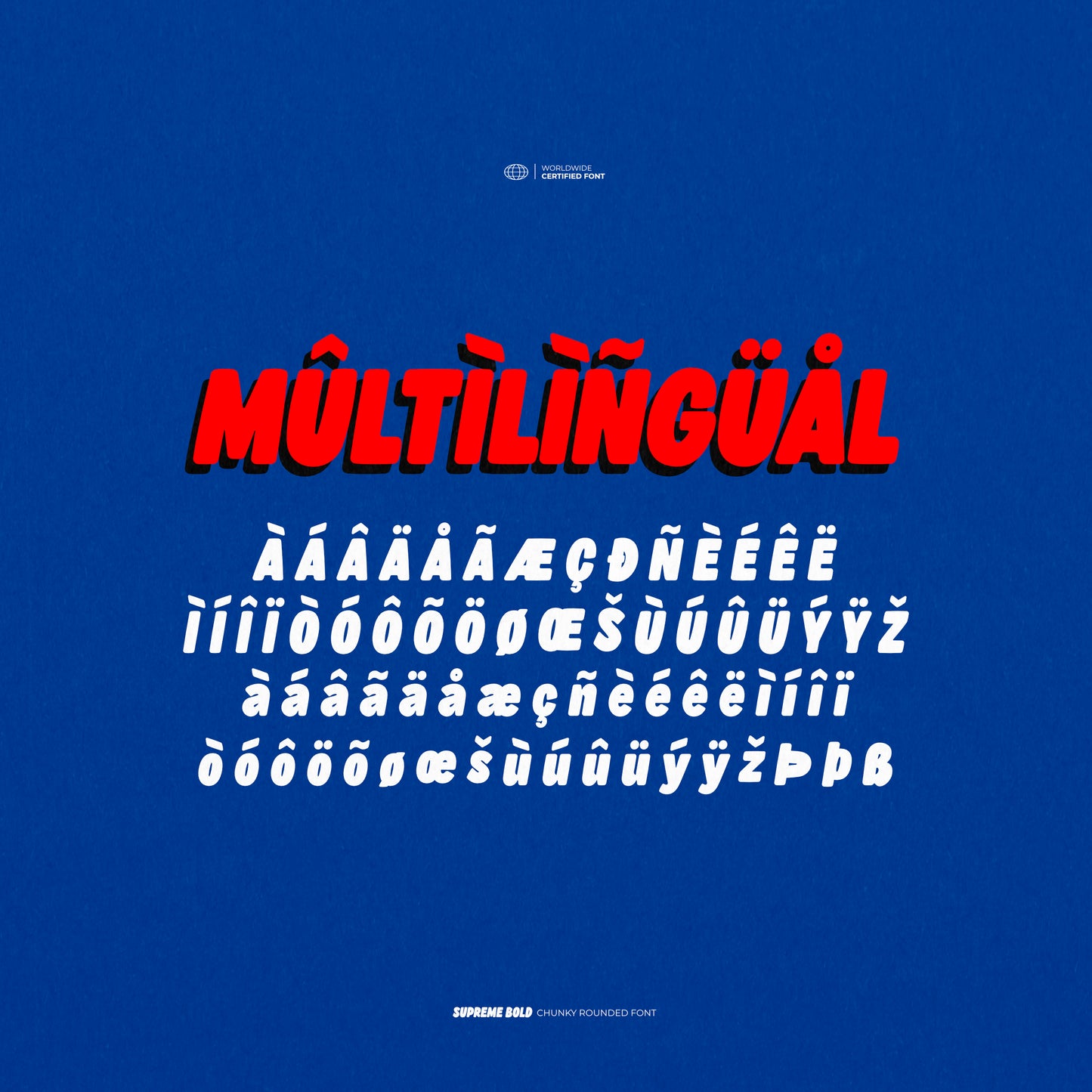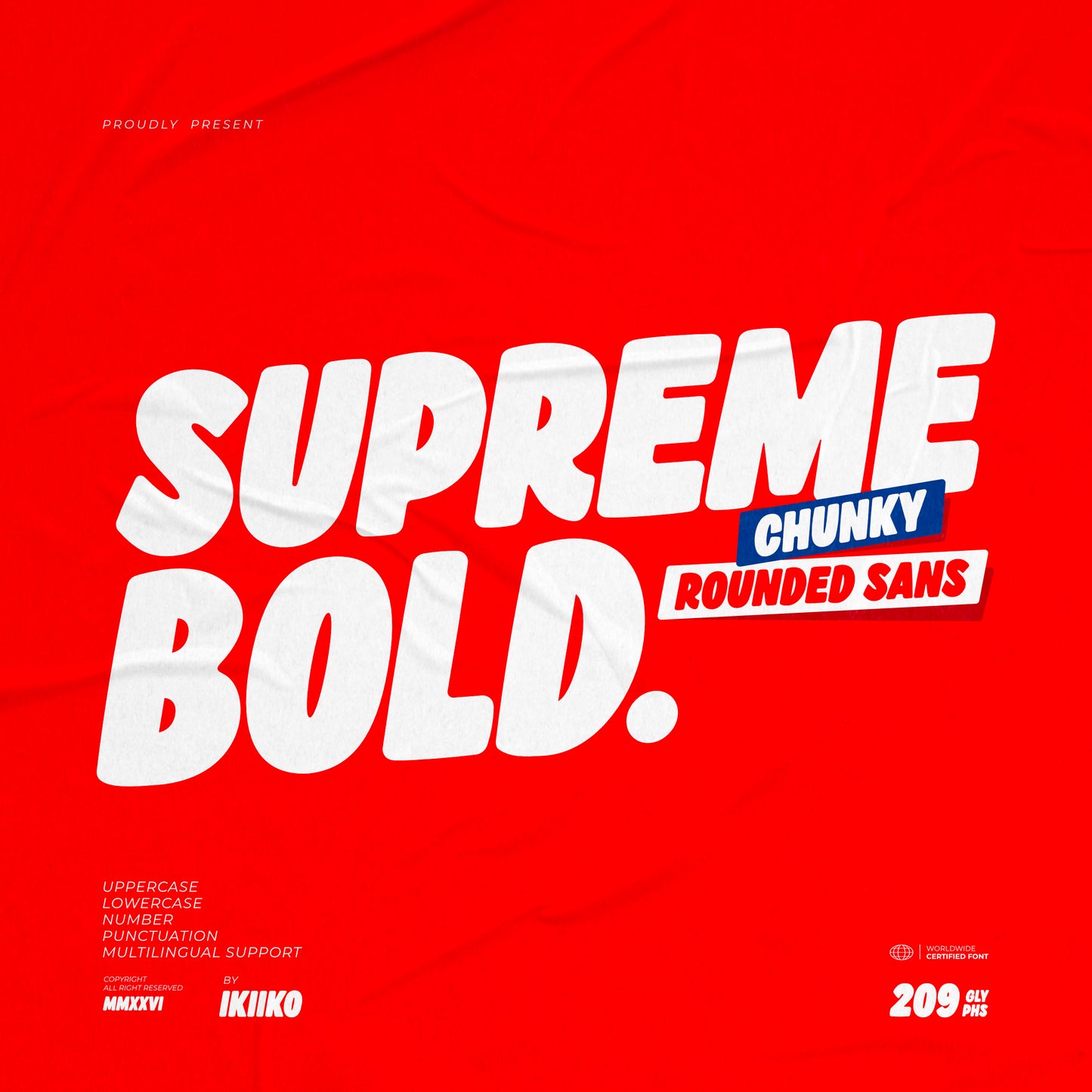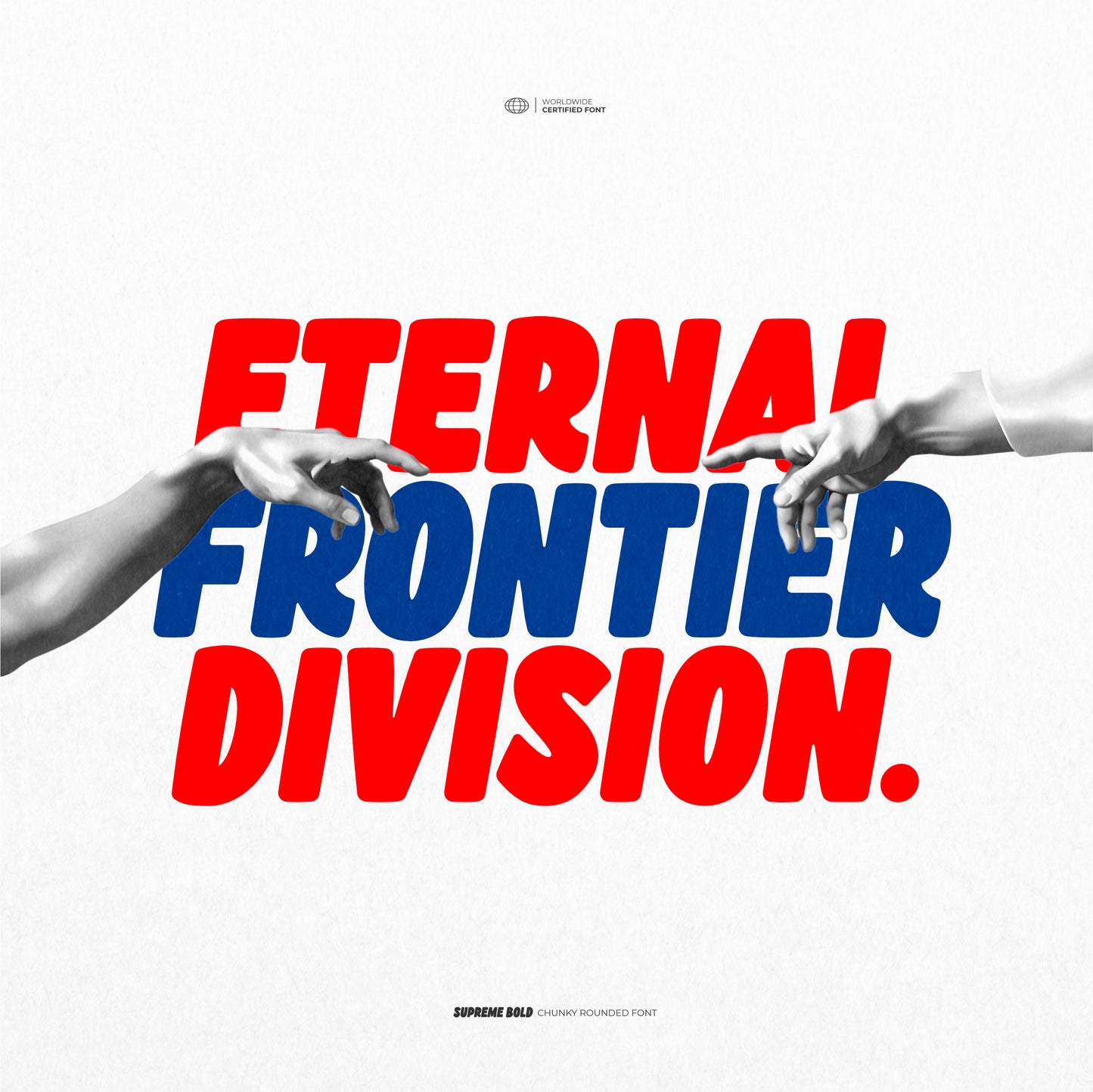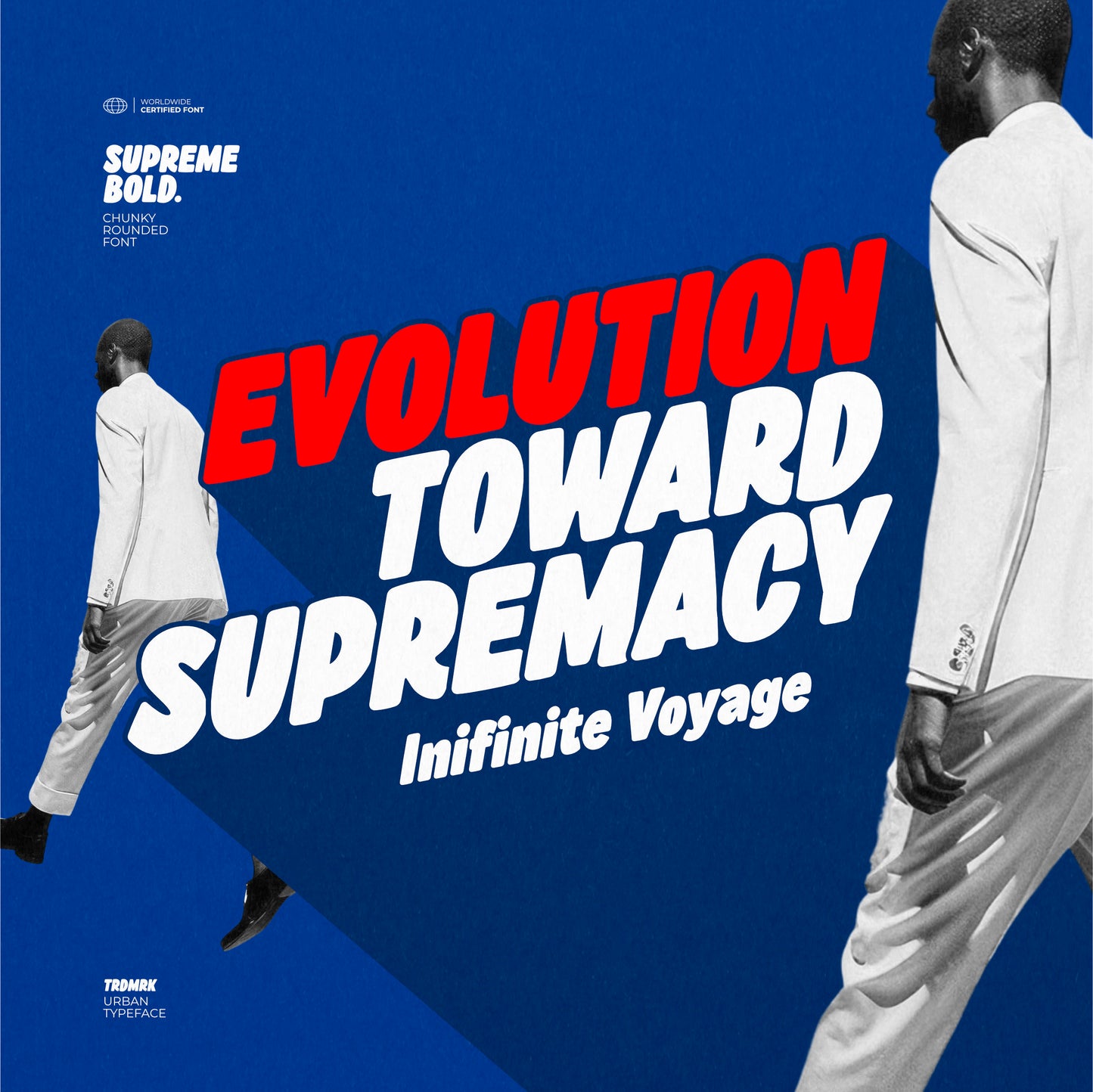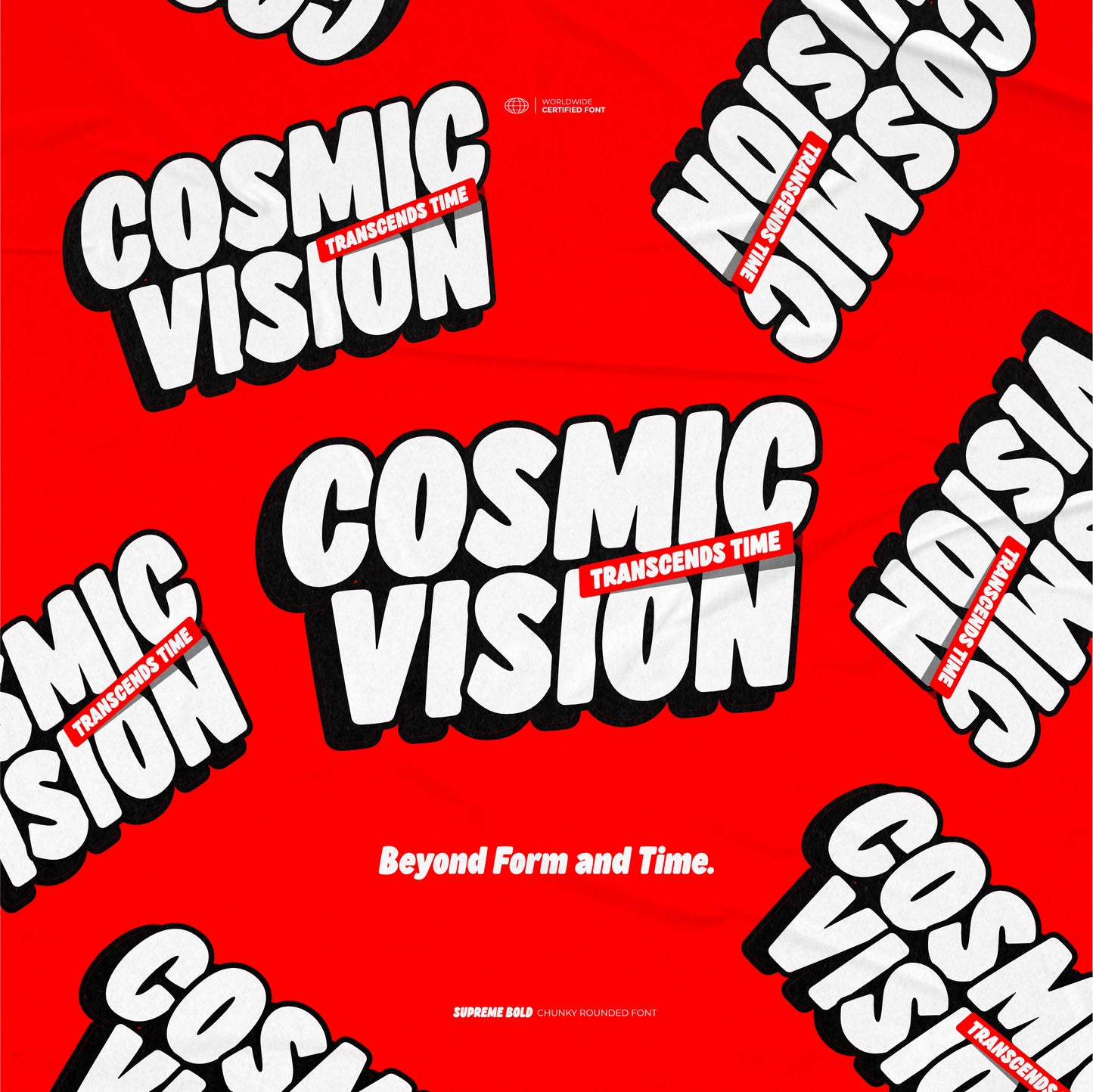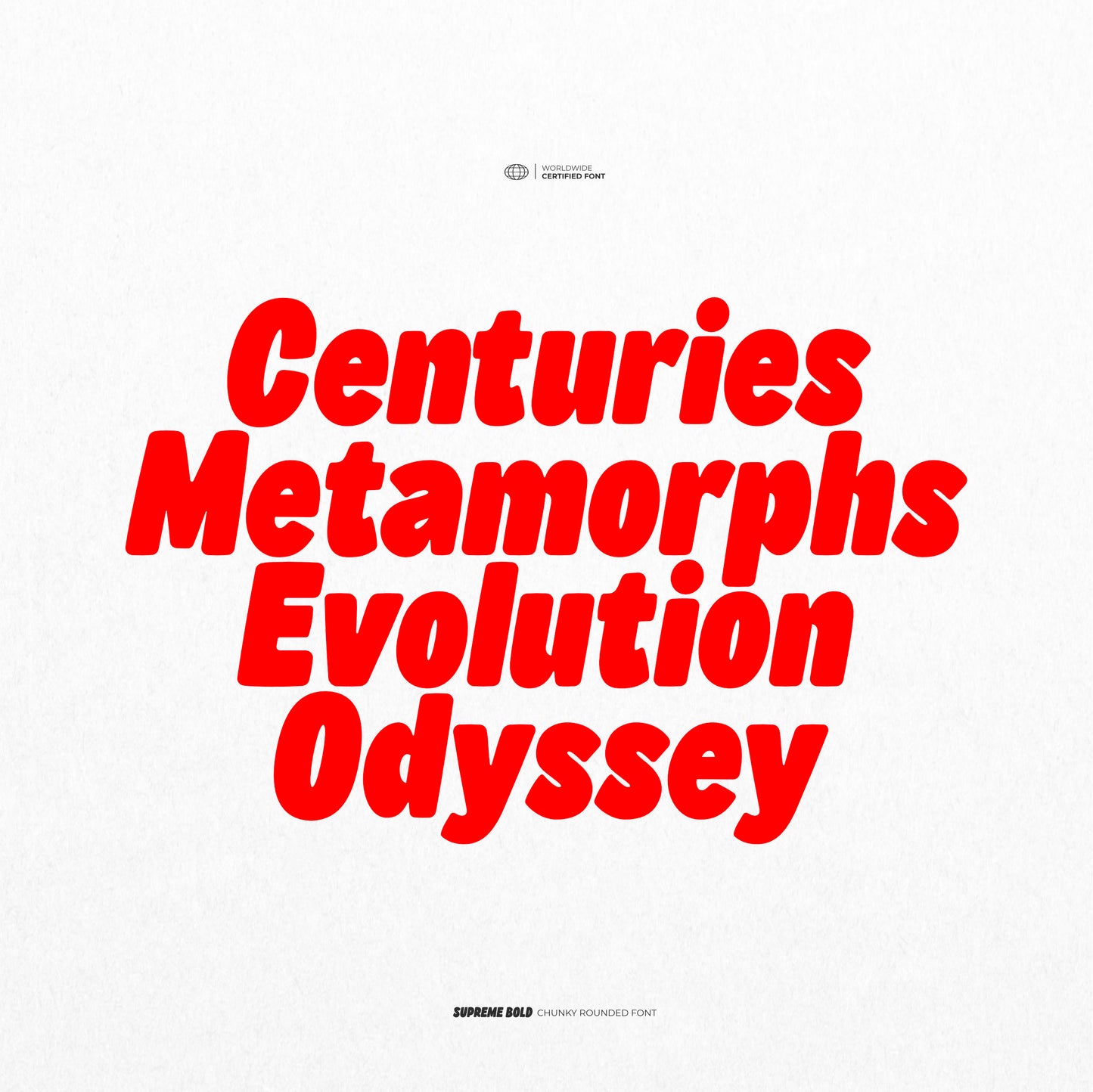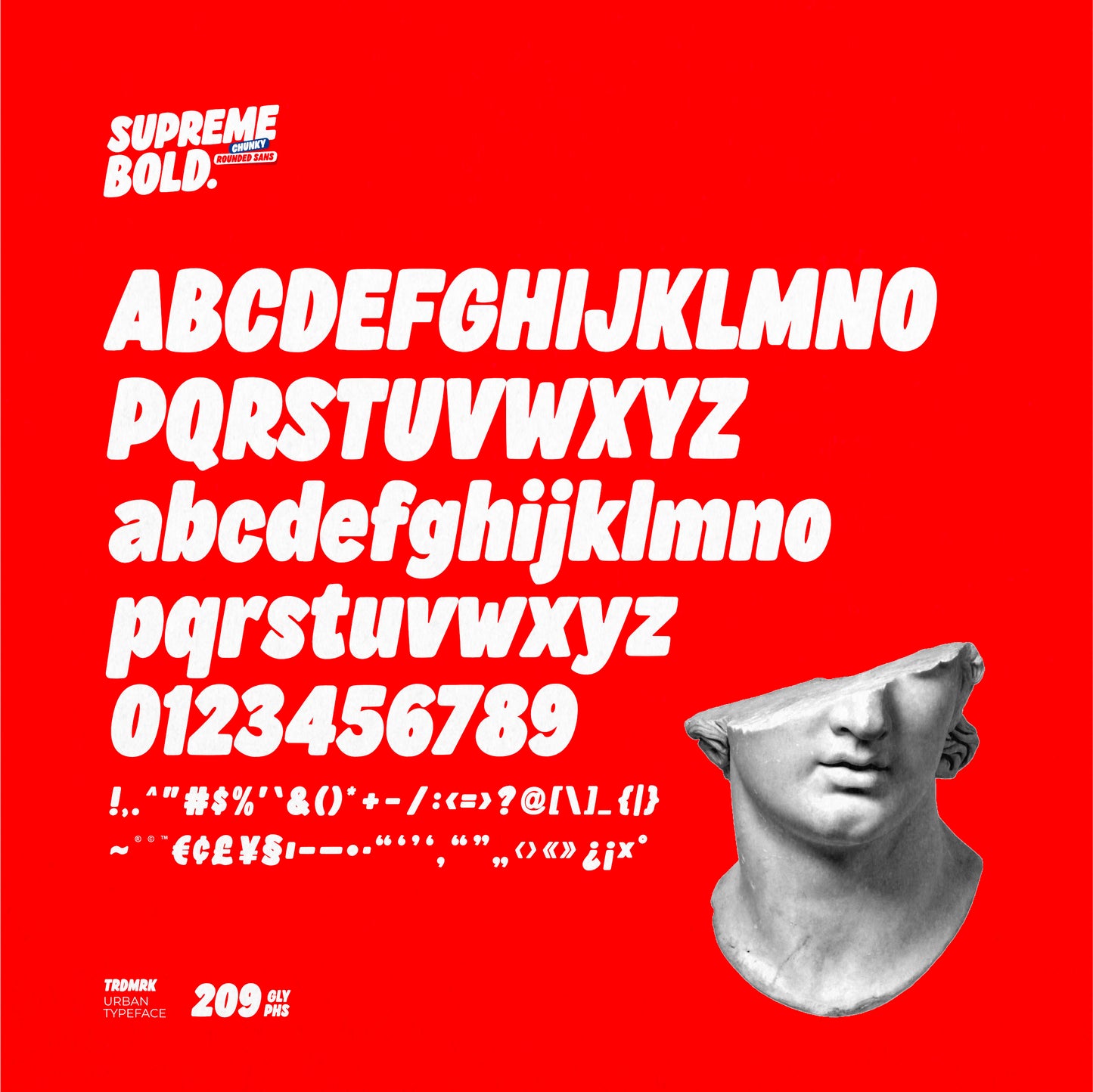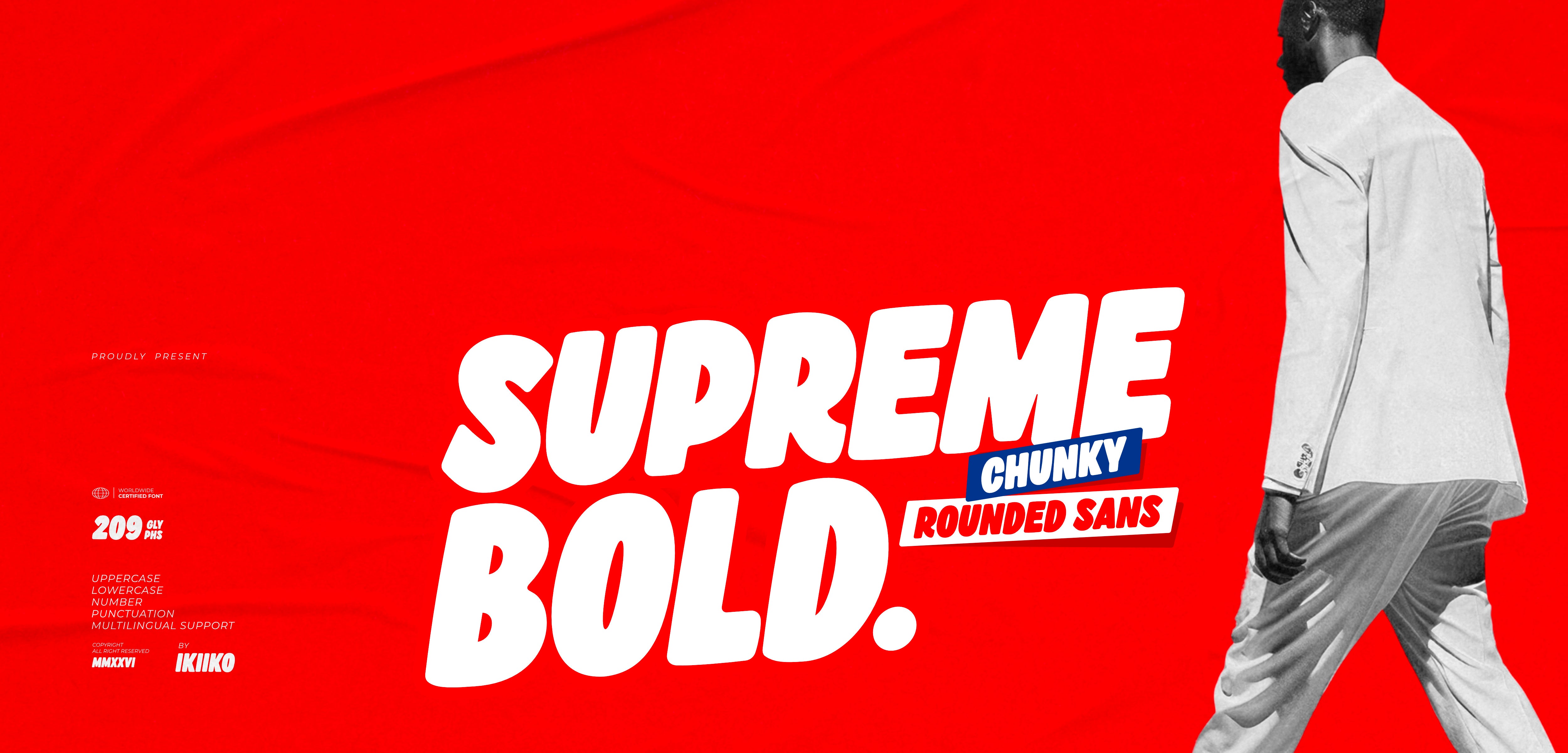
Supreme Bold
Ikiiko
Supreme Bold is an edgy, bold sans typeface built with a chunky, condensed structure and smooth rounded forms. Designed with an organic aesthetic in mind, this font delivers high energy and instant visual impact, making every word feel alive and expressive.
With its bold weight, rounded edges, and condensed proportions, Supreme Bold creates a powerful yet playful balance between toughness and flow. The organic shapes give it a raw, handcrafted vibe, while the aesthetic styling keeps it modern, stylish, and visually striking. This font is made for creators who want an edgy, chunky, and bold typographic voice—something condensed, rounded, and organic that stands out in today’s fast-moving visual culture.